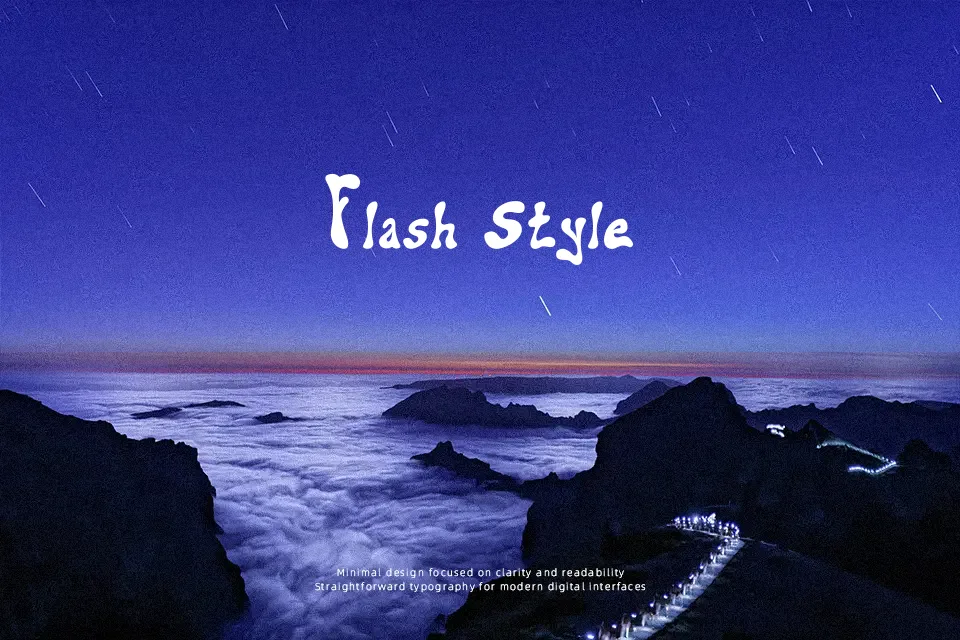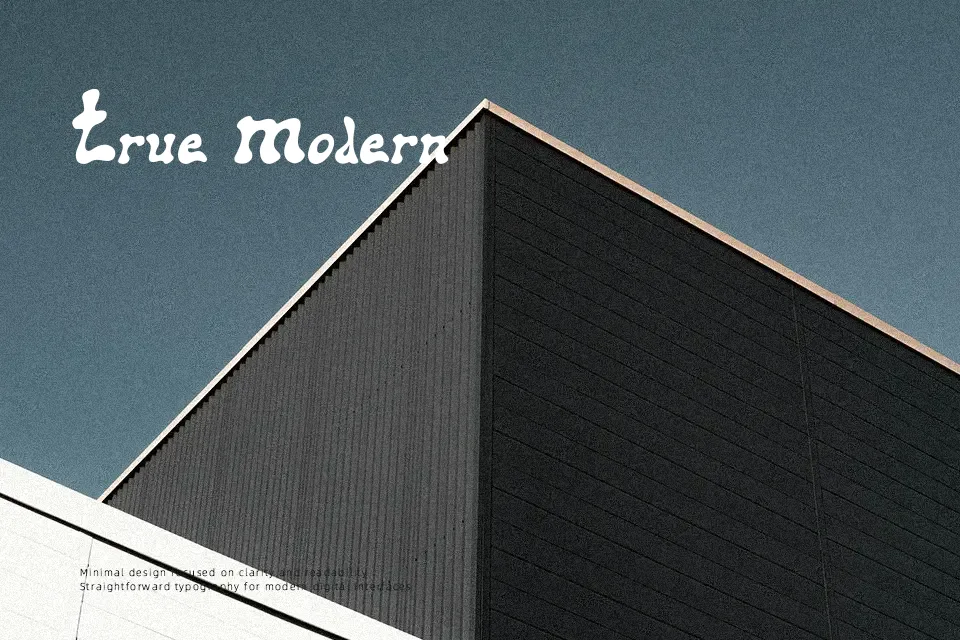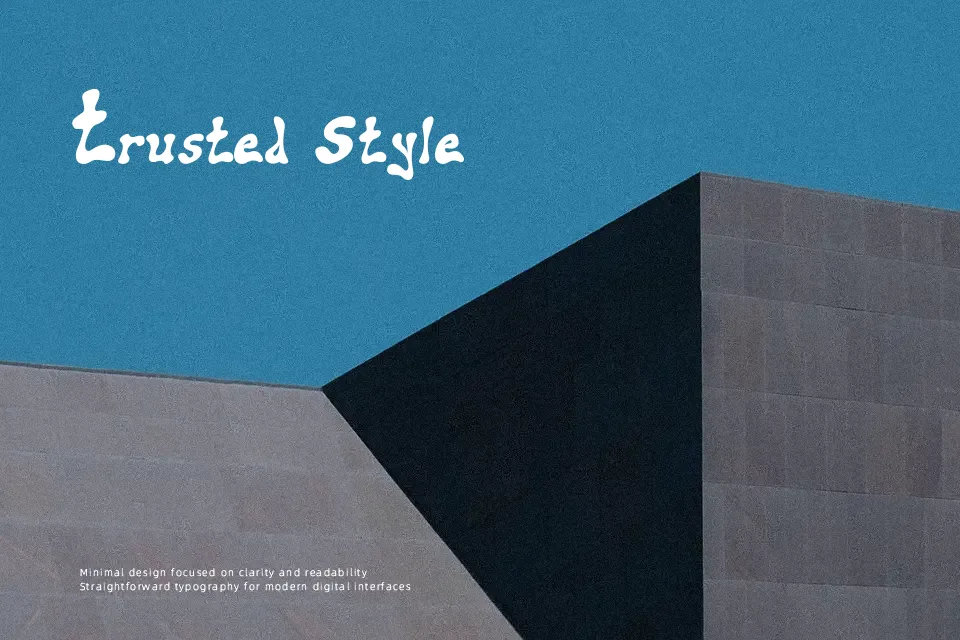
Addiel Font
There’s something raw and confident about Addiel — the letterforms carry that unmistakable late-70s groove energy, with bold strokes, tight but lively spacing, and curves that feel sketched rather than engineered. Created by Carlos Addiel Gaxiola Soto as part of a graphic design workshop at Instituto Tecnológico de Sonora in Mexico, the font carries a handmade spirit that formal typefaces rarely achieve. It lands well on concert posters, retro-themed packaging headers, and music event branding where personality matters more than precision. The glyph set covers Basic Latin and Latin-1 Supplement — serviceable for most Western European languages, but nothing beyond. Where it falls apart is predictable: small sizes, body text, or any context demanding readability over style will expose its limits quickly. Use it large, use it intentionally.
Best For:- Retro music event posters and flyers
– Vintage-styled product packaging headers
– Band or music project logo treatments
– Social media graphics with a 70s throwback theme
Not Ideal For:- Body text or long-form reading
– Corporate branding or professional reports
– Small-size applications (labels, footnotes)
– Multilingual projects requiring non-Latin scripts
Perfect for branding, logo, and music, with a bold and decorative style.